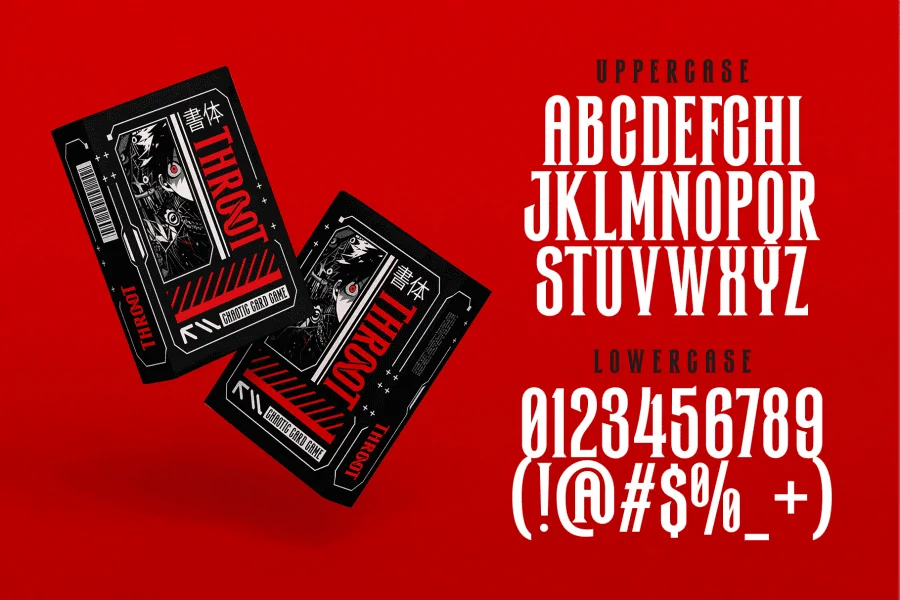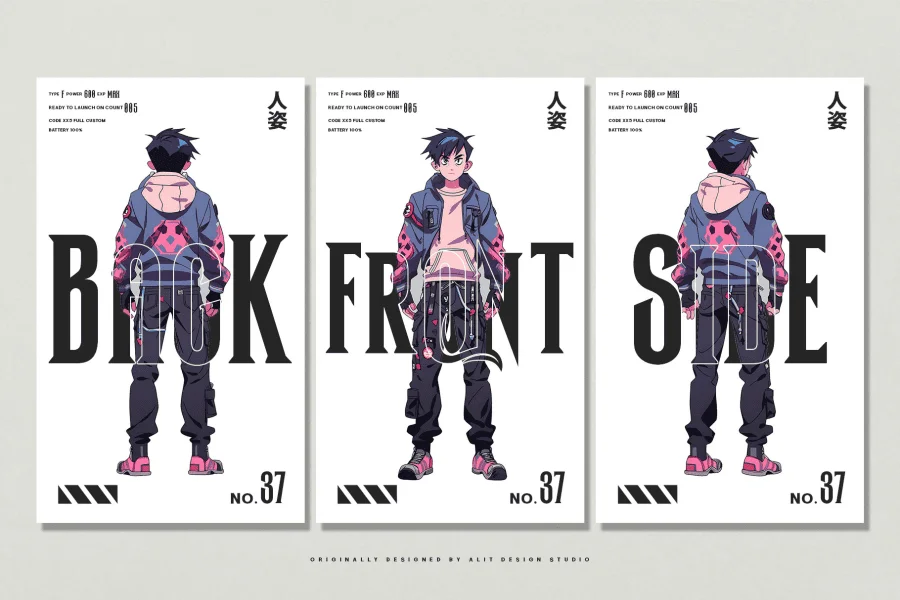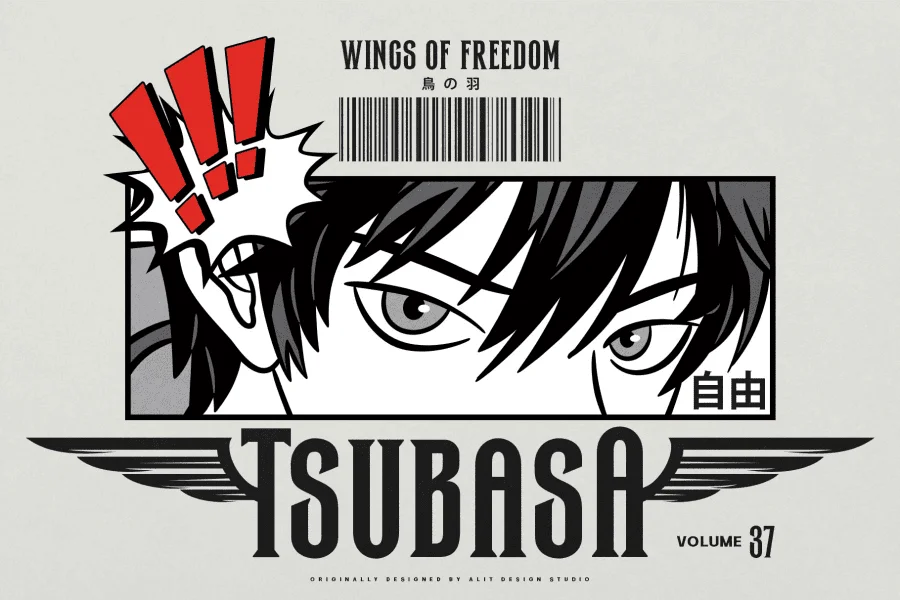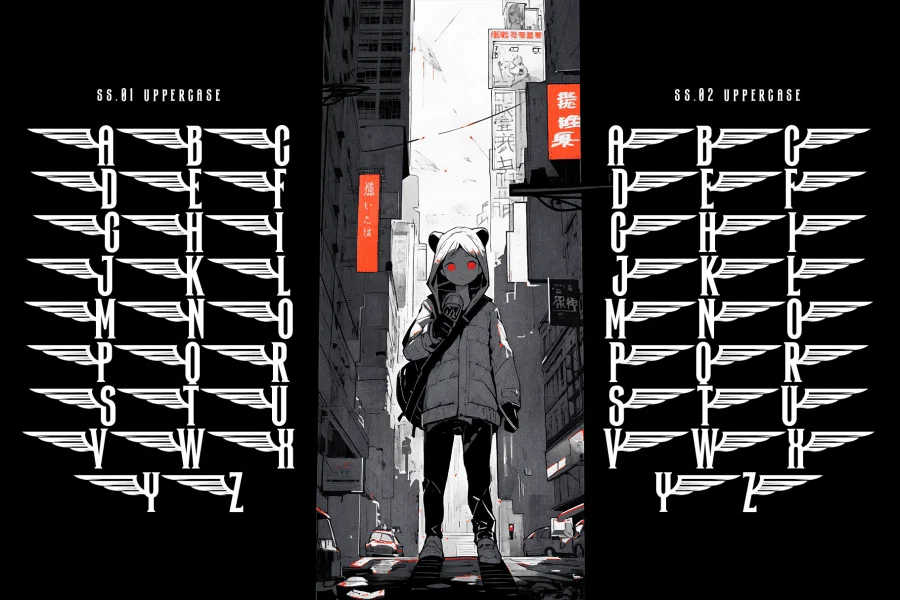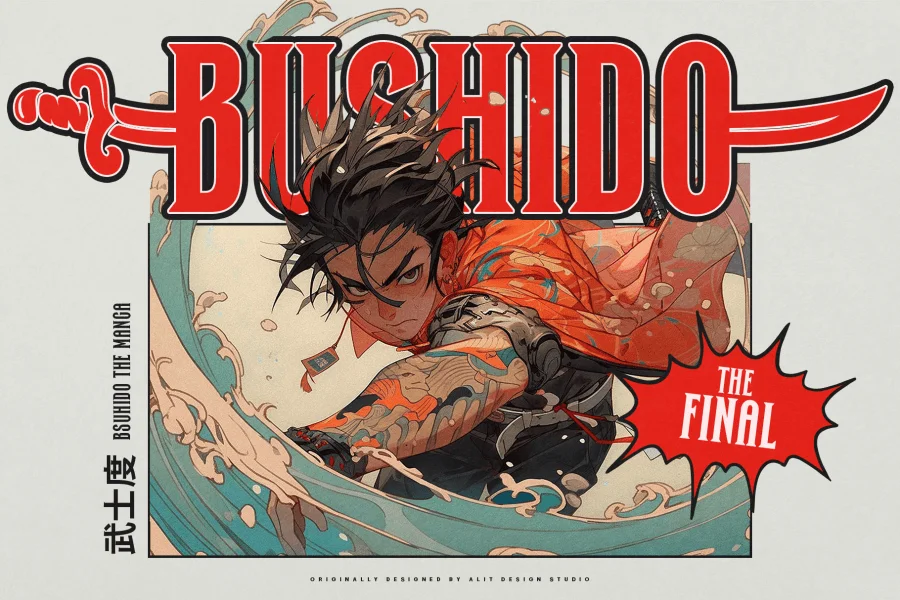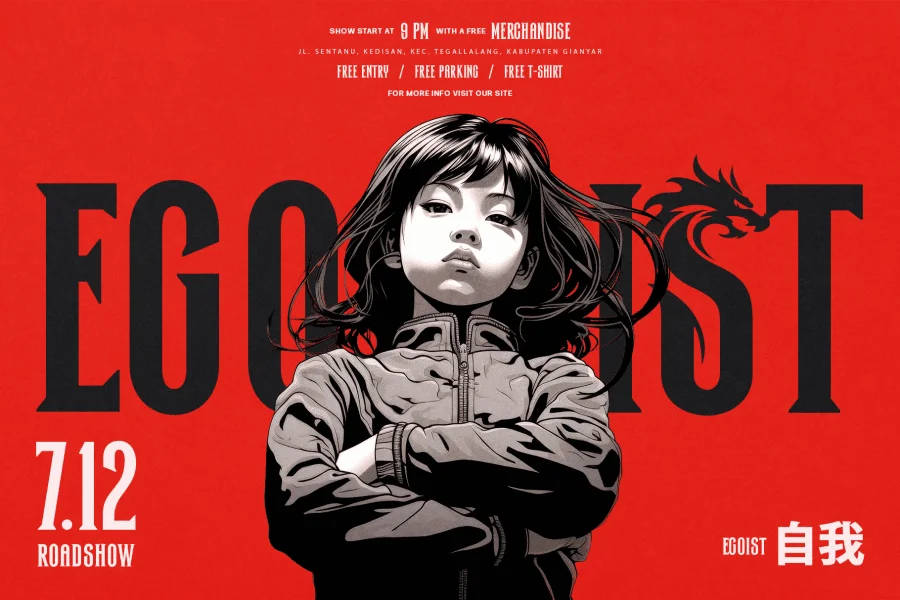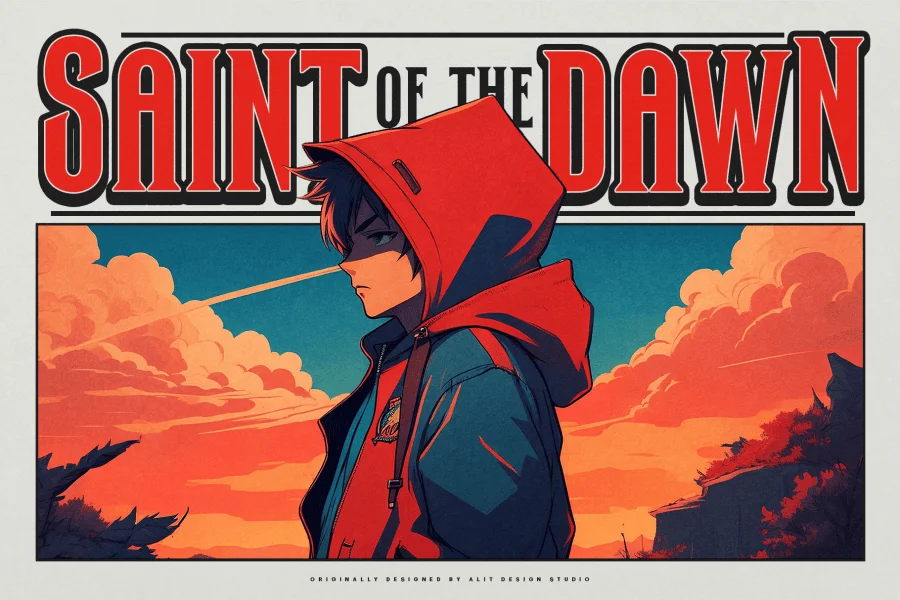
Introducing "Power of Dragon" Typeface - Unleash Your Inner Hero!
Unleash the extraordinary with our "Power of Dragon" Typeface, a bold and dynamic serif display font designed for those who aspire to be legendary. Embrace the spirit of a super hero anime with this powerful typeface that combines strength, elegance, and a touch of fantasy.